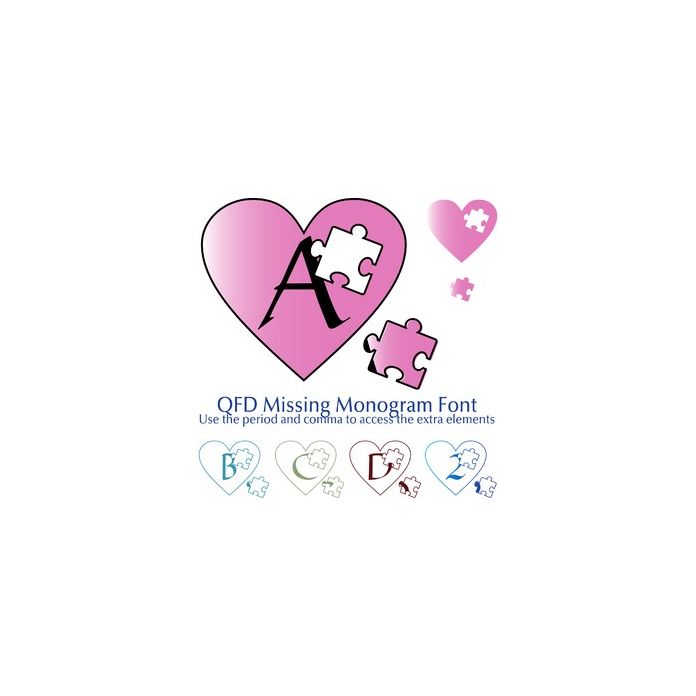
Access the underlay pieces with the period and comma.
Perfect for gift tags, cards, pillows, invitations, wall art, t-shirts, mugs and anything else you can think of.